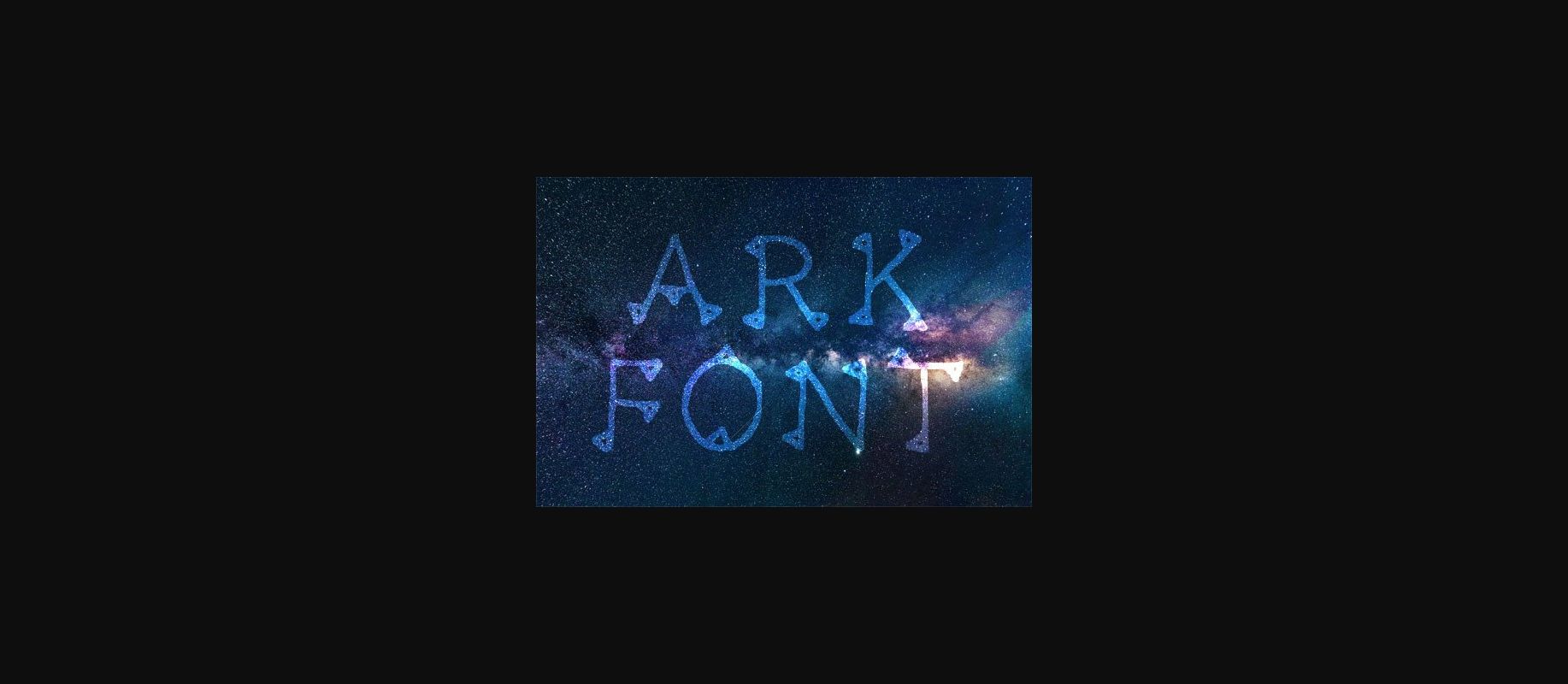
Ark Font
About Ark Font
Ark is a whimsical and unique decorative font featuring characters that end in little triangles. Geometrical and fun, this typeface is sure to impress!